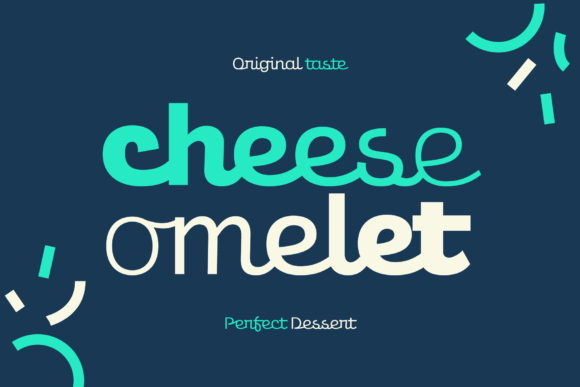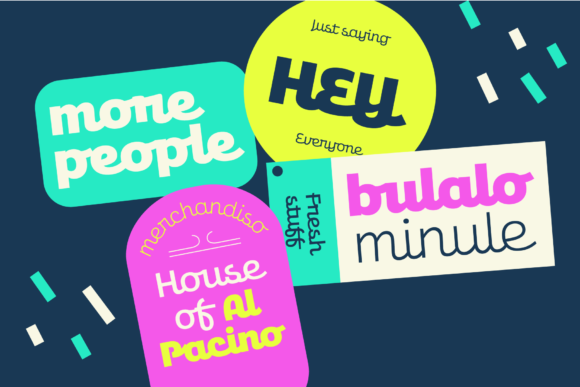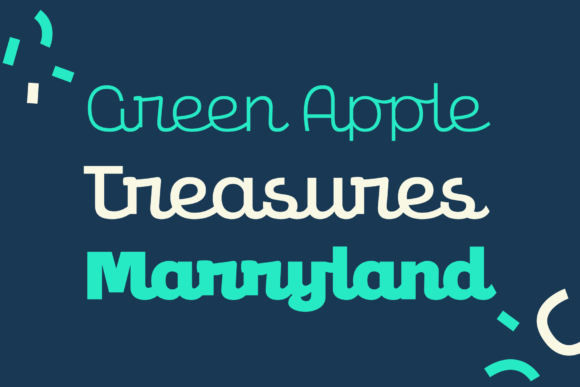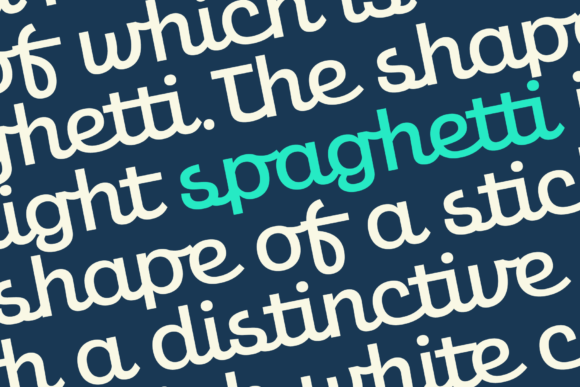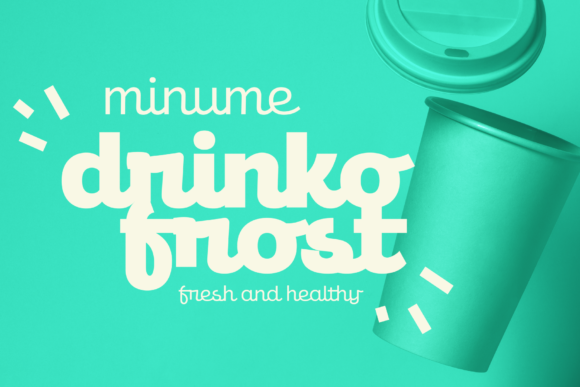
Introducing Amio Font: The Fun, Geometrical Script Font Family
Are you tired of using the same old fonts in your design projects? Do you want to add a touch of personality and whimsy to your creations? Look no further than Amio Font, a fun, geometrical script font family that’s sure to enhance the beauty of your projects.
What is Amio Font?
Amio Font is a carefully crafted font family that’s designed to be balanced and varied. Not too thin and not too thick, Amio Font strikes the perfect balance between elegance and playfulness. Its geometrical script style gives it a unique and modern look that’s perfect for a wide range of design projects, from branding and advertising to packaging and digital media.
Key Features of Amio Font
- Fun and playful design: Amio Font is designed to add a touch of personality to your projects. Its geometrical script style gives it a unique and modern look that’s sure to stand out.
- Balanced and varied: Amio Font is carefully crafted to be balanced and varied, with a range of letterforms and swashes to choose from.
- Not too thin and not too thick: Amio Font has a perfect balance of thickness and thinness, making it easy to read and visually appealing.
- Multilingual support: Amio Font supports a wide range of languages, making it perfect for international design projects.
Why Choose Amio Font?
So why choose Amio Font for your design projects? Here are just a few reasons:
- Add personality to your designs: Amio Font is the perfect way to add a touch of personality and whimsy to your designs.
- Stand out from the crowd: With its unique geometrical script style, Amio Font is sure to help your designs stand out from the crowd.
- Easy to read: Despite its playful design, Amio Font is easy to read and understand, making it perfect for body text and headlines.
- Versatile: Amio Font is perfect for a wide range of design projects, from branding and advertising to packaging and digital media.
How to Use Amio Font
Using Amio Font in your design projects is easy. Here are a few tips:
- Pair it with a sans-serif font: Amio Font looks great paired with a sans-serif font, such as Arial or Helvetica.
- Use it for headlines and titles: Amio Font is perfect for headlines and titles, where its playful design can really shine.
- Experiment with different colors: Amio Font looks great in a wide range of colors, so don’t be afraid to experiment and find the perfect hue for your design.
In conclusion, Amio Font is a fun, geometrical script font family that’s perfect for designers and crafters looking to add a touch of personality to their projects. With its balanced and varied design, Amio Font is sure to enhance the beauty of your creations and help you stand out from the crowd.